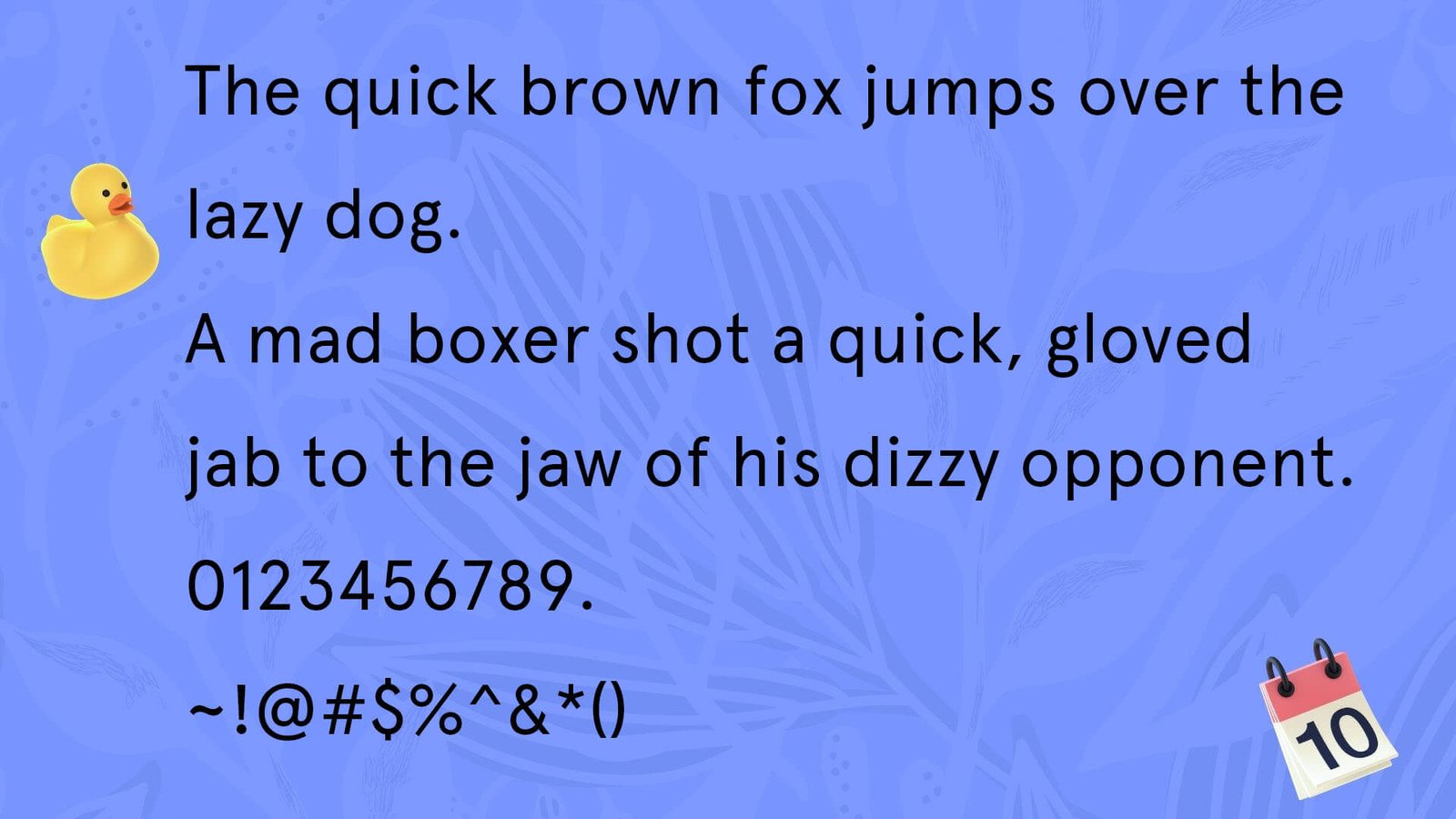
Apercu Font is a modern Grotesque Sans-Serif font that was created by Colophon Font Foundry in 2010. Colophon is an independent foundry that was set up by UK-based studio The Entente.
This font is motivated by ITC Johnston, Gill Sans Font, Neuzeit Font, and Franklin Gothic Font.